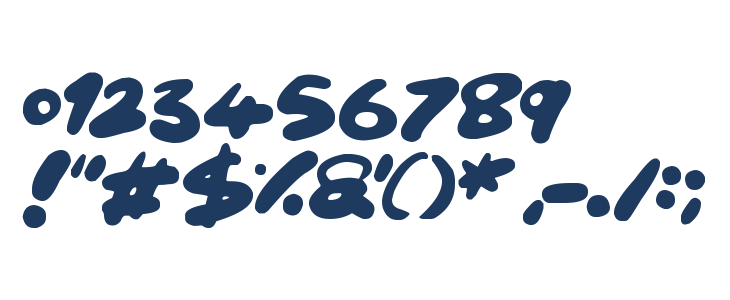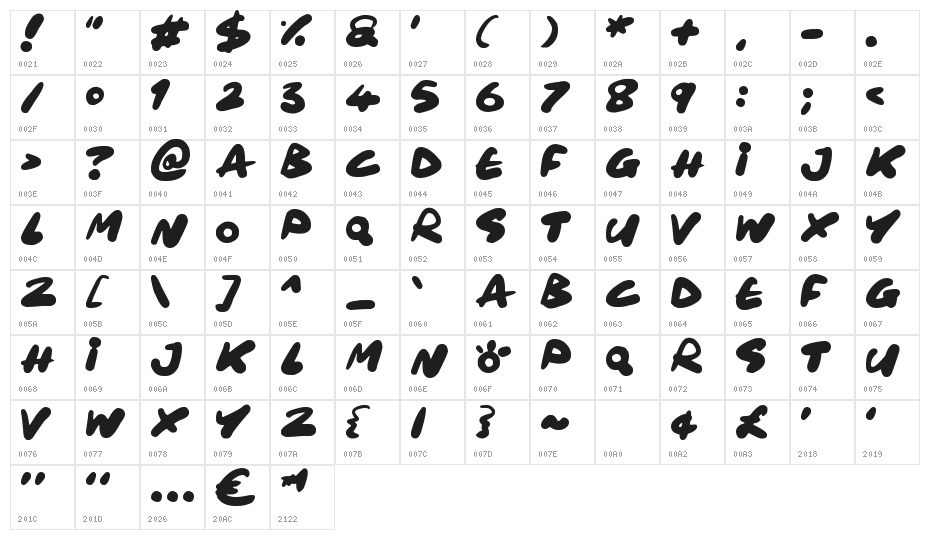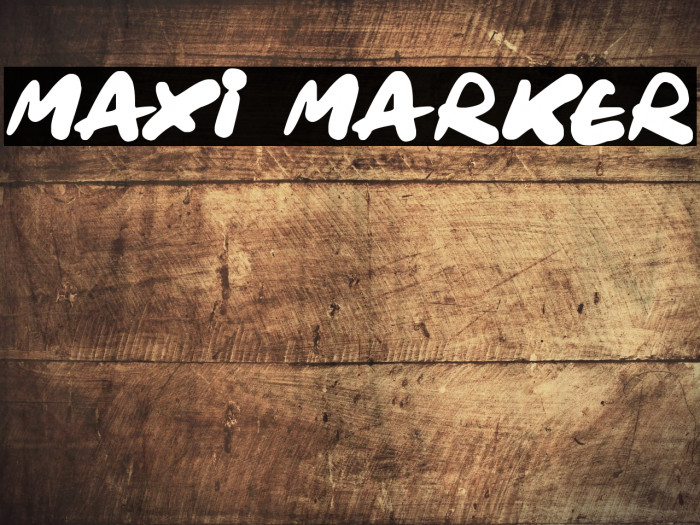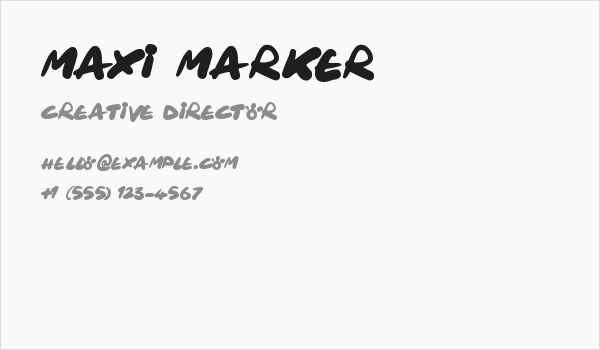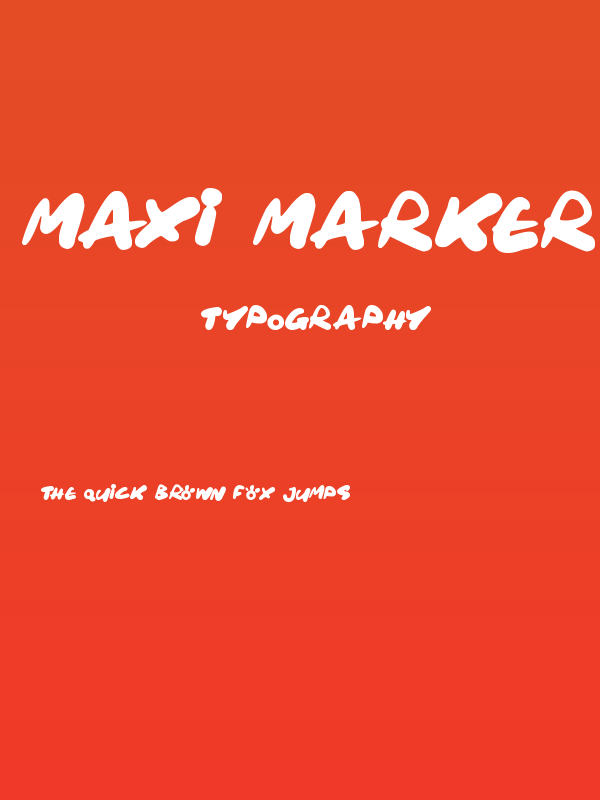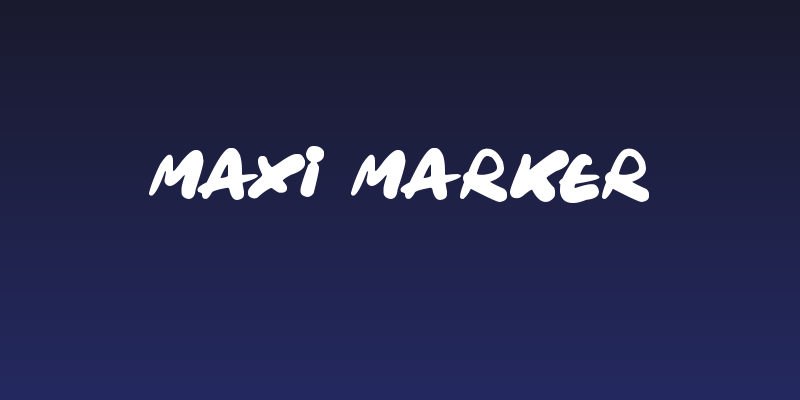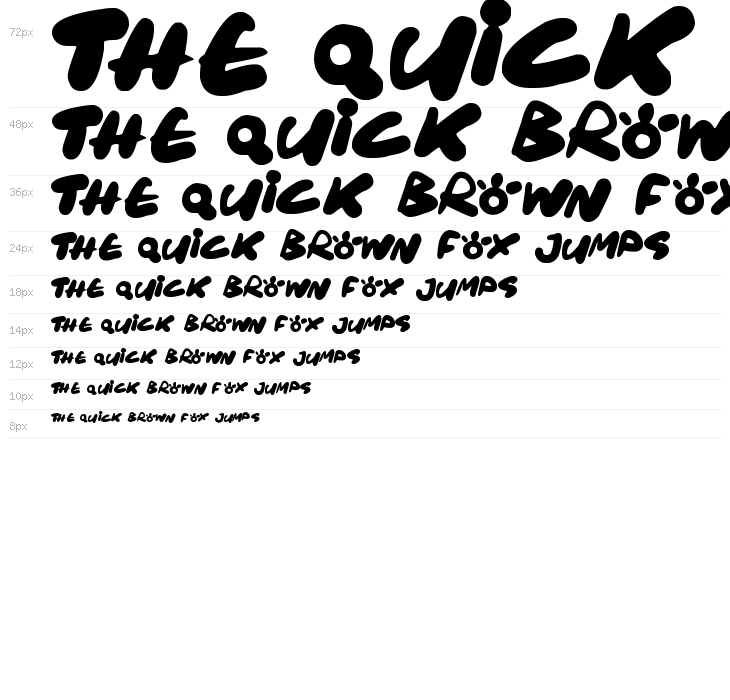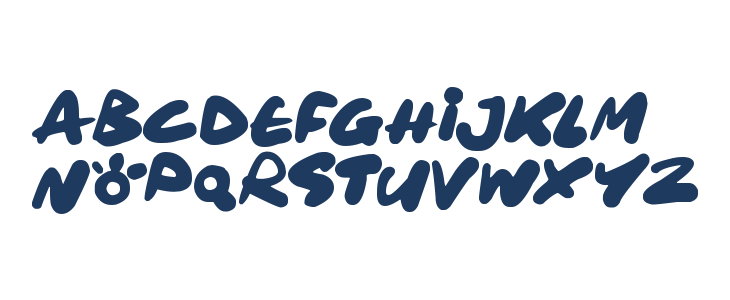
Maxi Marker Font
Maxi Marker Description
This font features a bold and dynamic style with a handwritten appearance, characterized by thick, rounded strokes that convey a sense of energy and playfulness. The letters are slightly slanted, adding to the casual and informal feel. The uppercase and lowercase letters are consistent in their boldness, making the font highly legible despite its decorative nature. The numbers and special characters maintain the same stylistic approach, ensuring uniformity across all characters. This font is ideal for projects that require a lively and engaging typeface.
| Use Case | Logos, Headlines, Posters |
| Proposed Projects | Ideal for posters, greeting cards, children's books, and branding that requires a fun and energetic touch. |